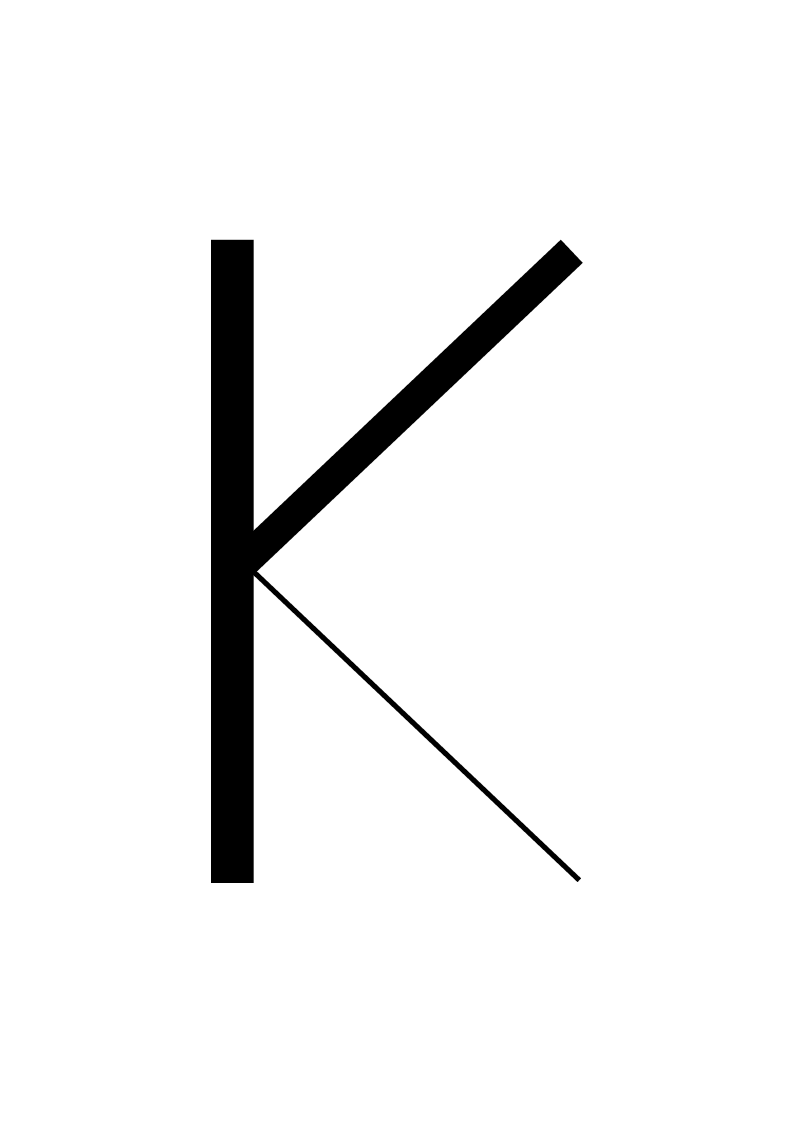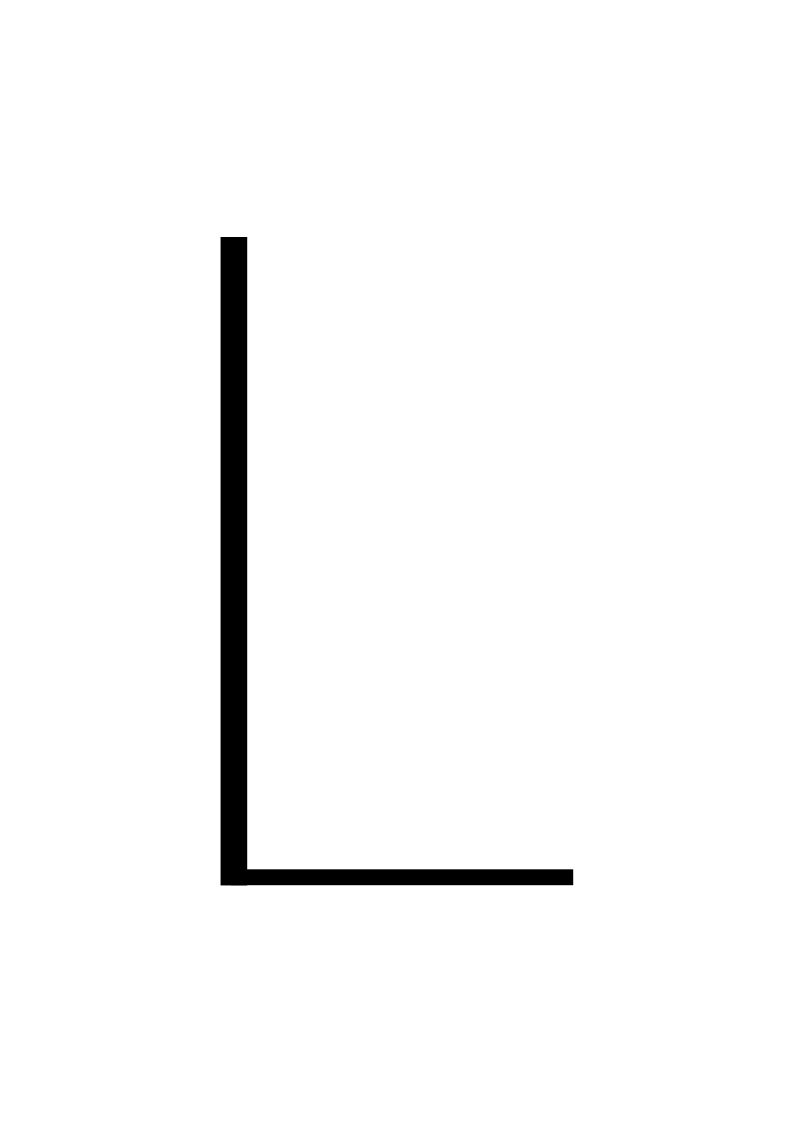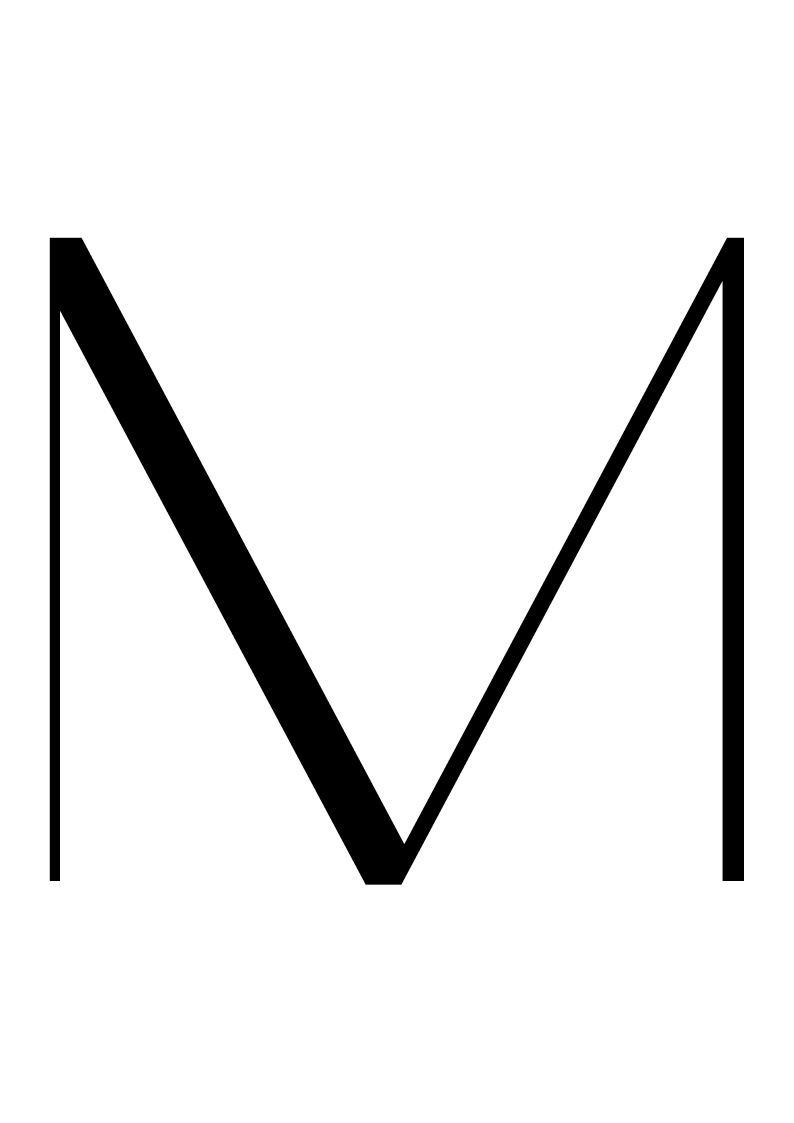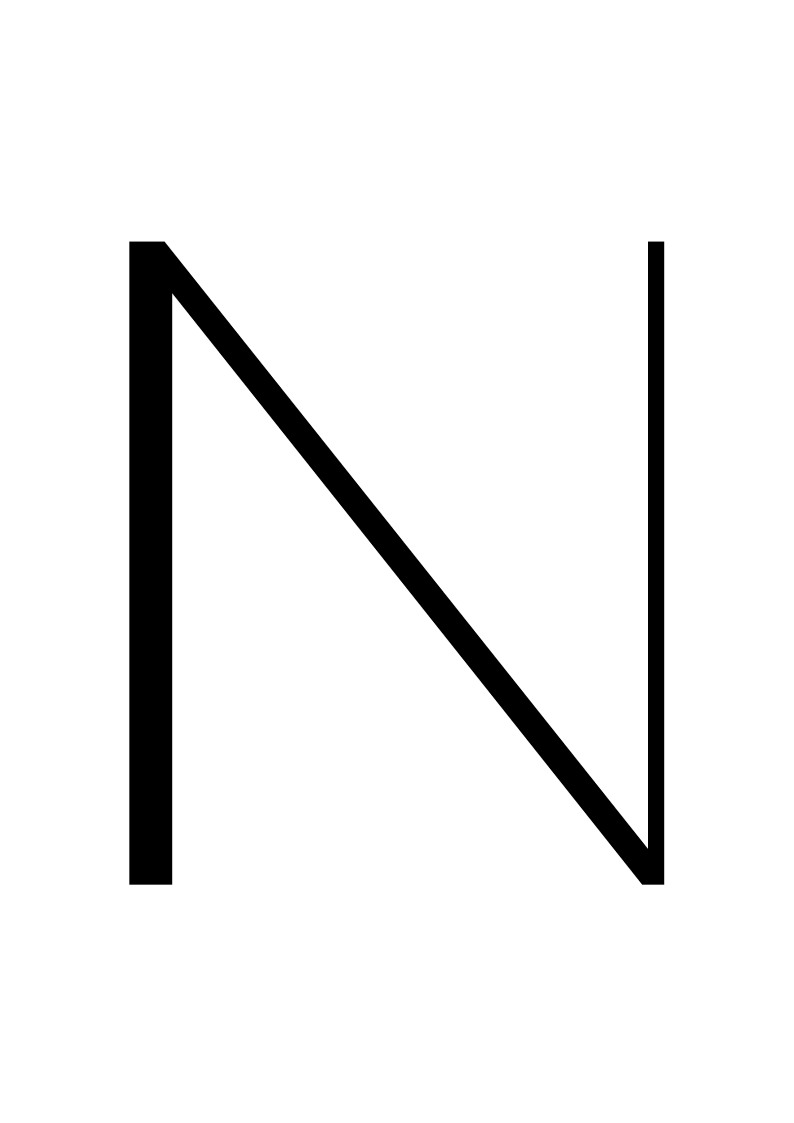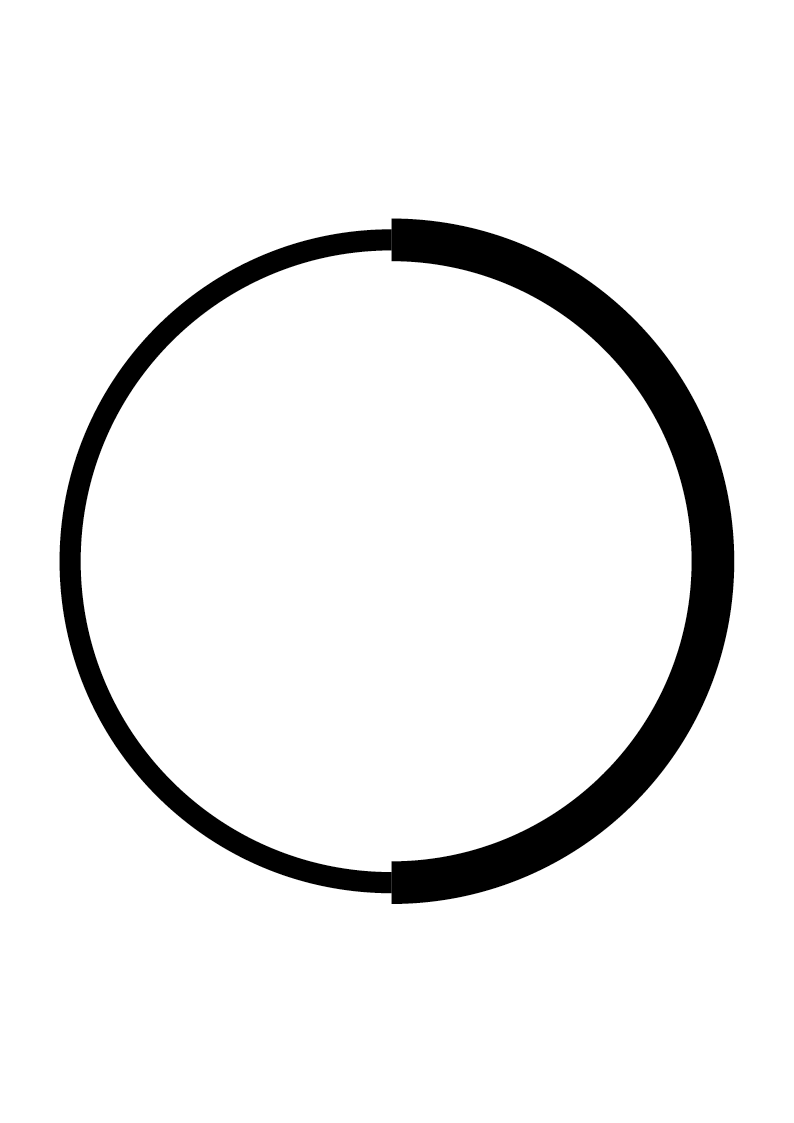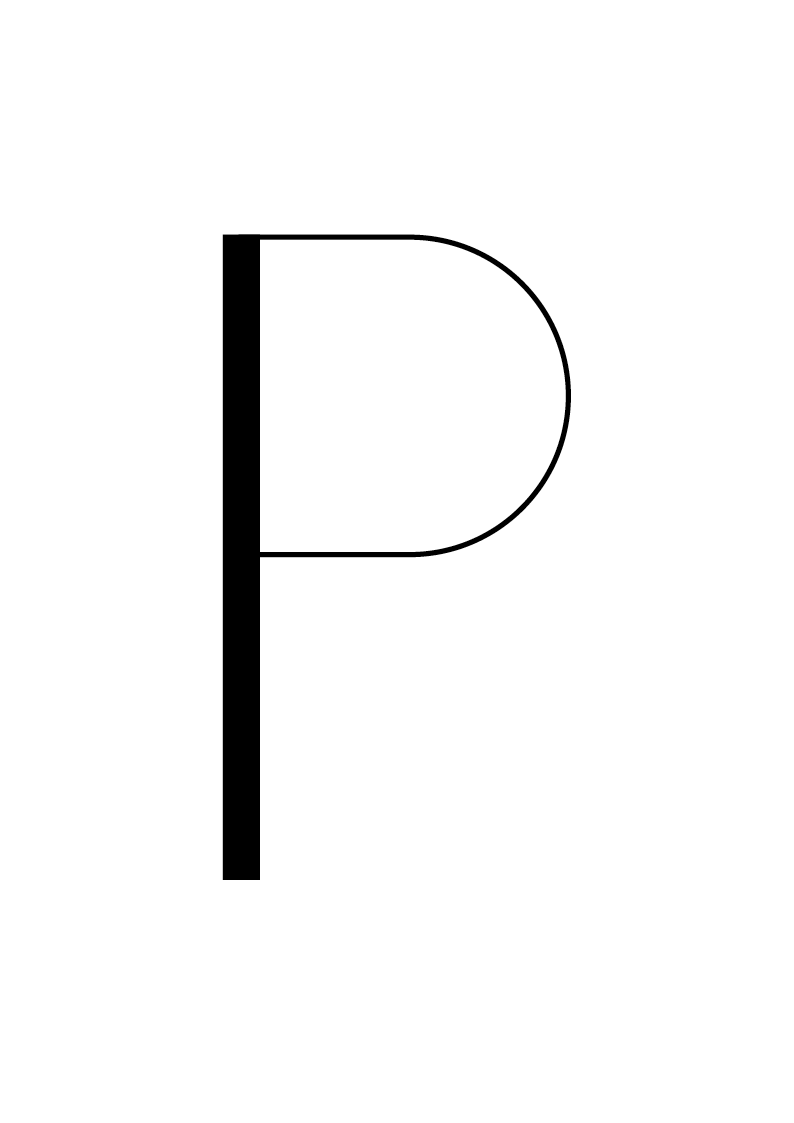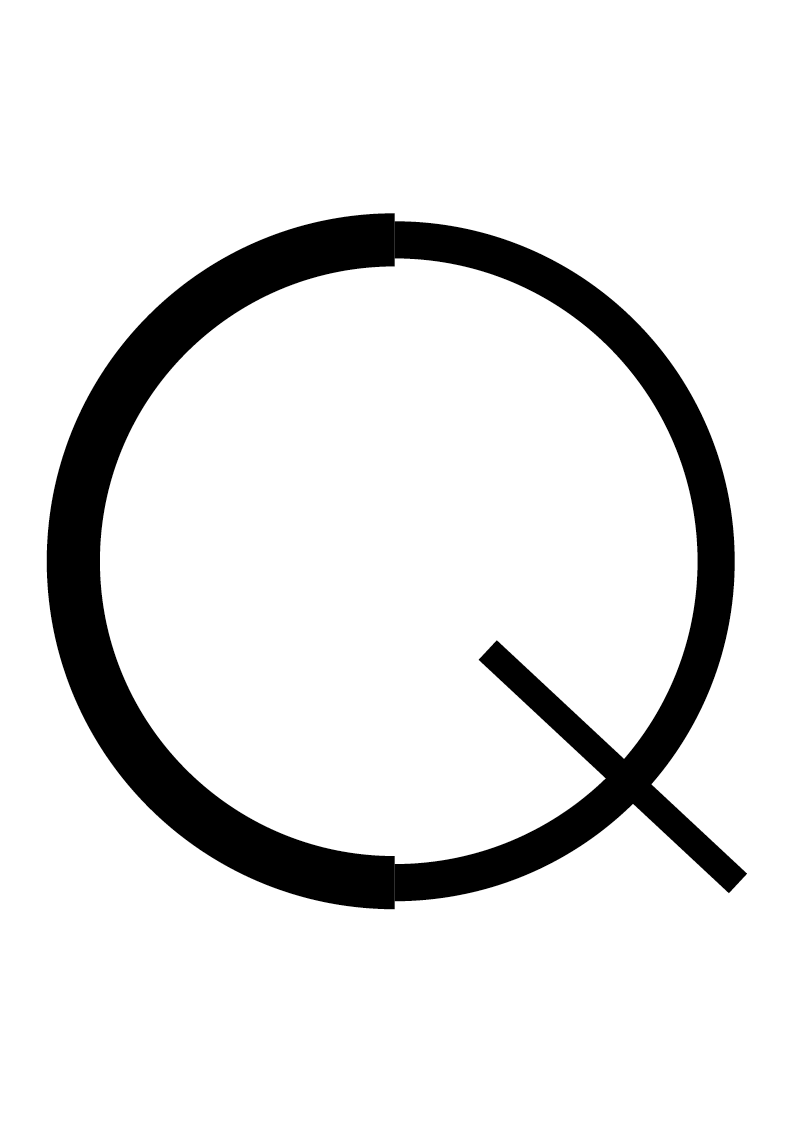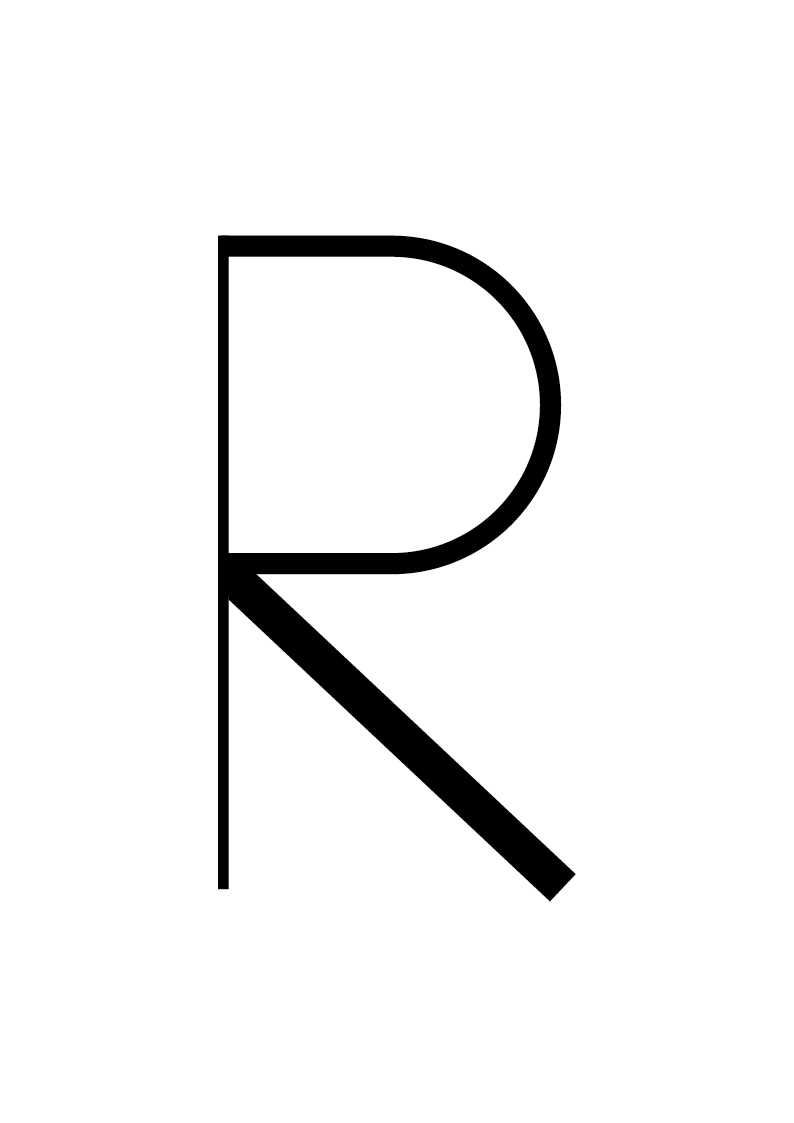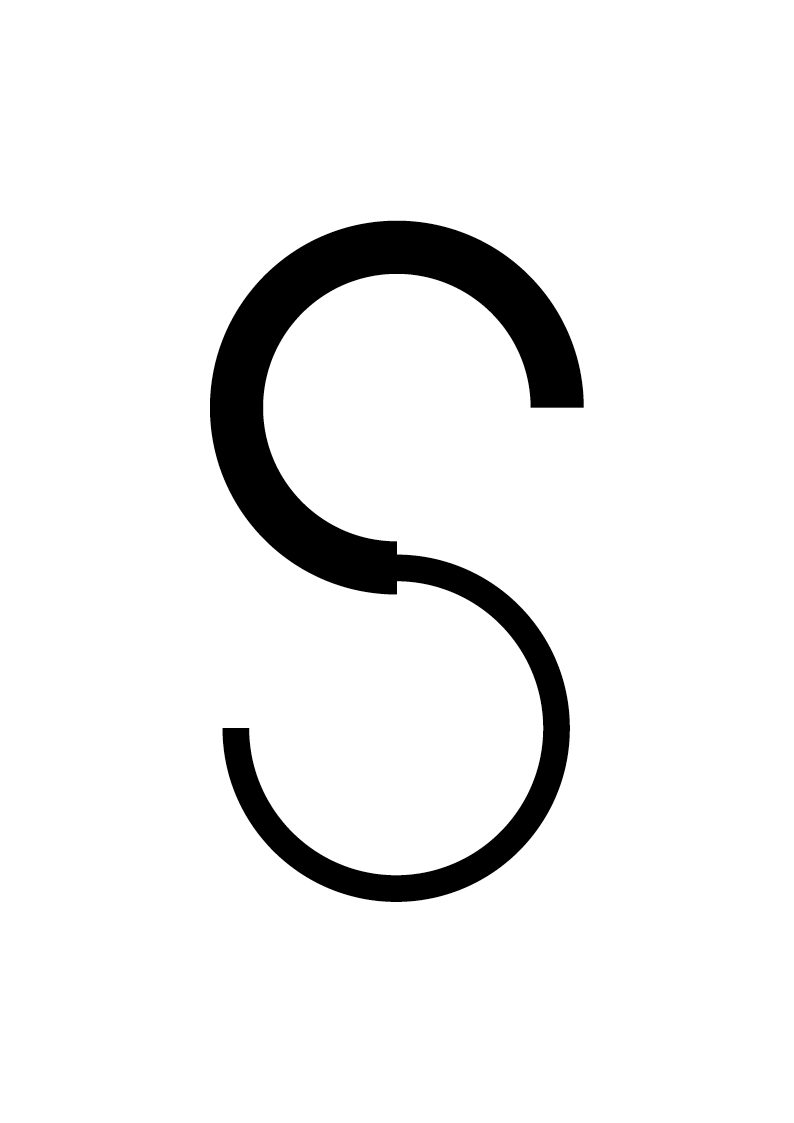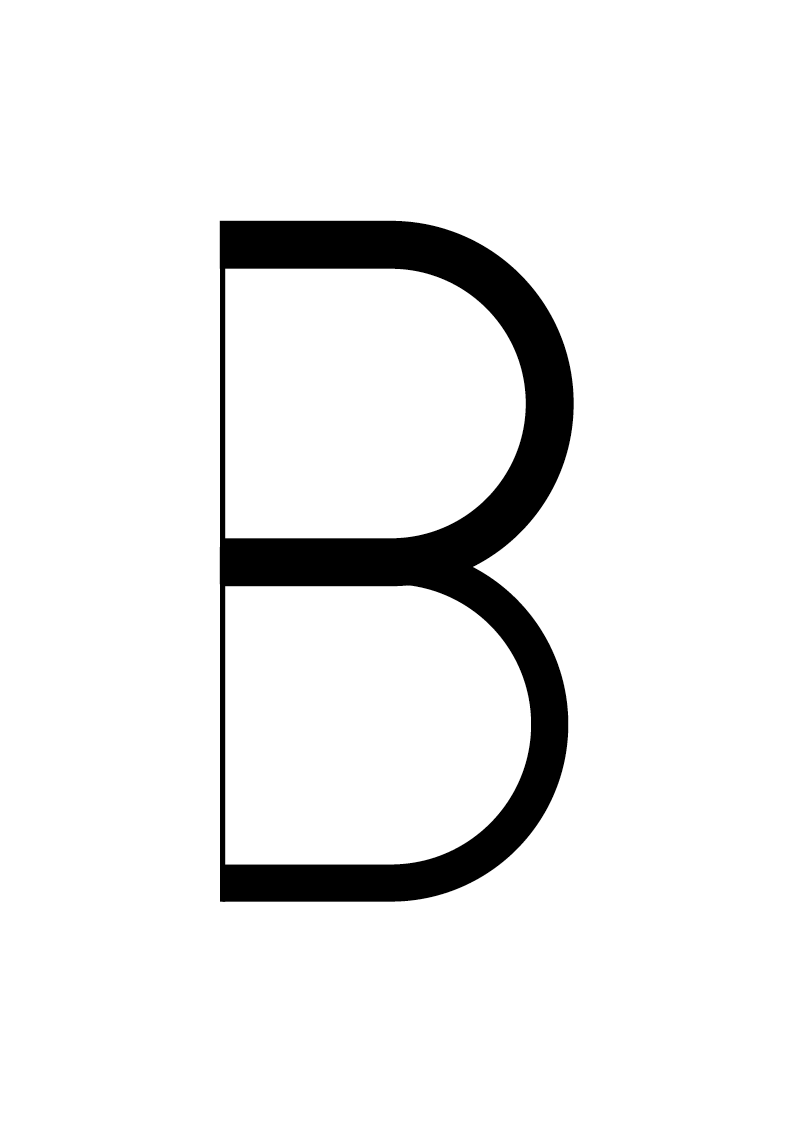
ALFREDAExperimental Typeface
Babies start to appear in my circle of friends. I would like to do a different typeface for every one of them. It’s a gift but I find it also interesting to comment on one of the first ways you get „designed“ & an identity. Your name. You can’t choose it obviously. It is given to you. The typeface is made via chance operations and hints to the condition which often forms your identity throughout life. Randomness.You can find the FRANZ typeface here and the LIA typeface here.